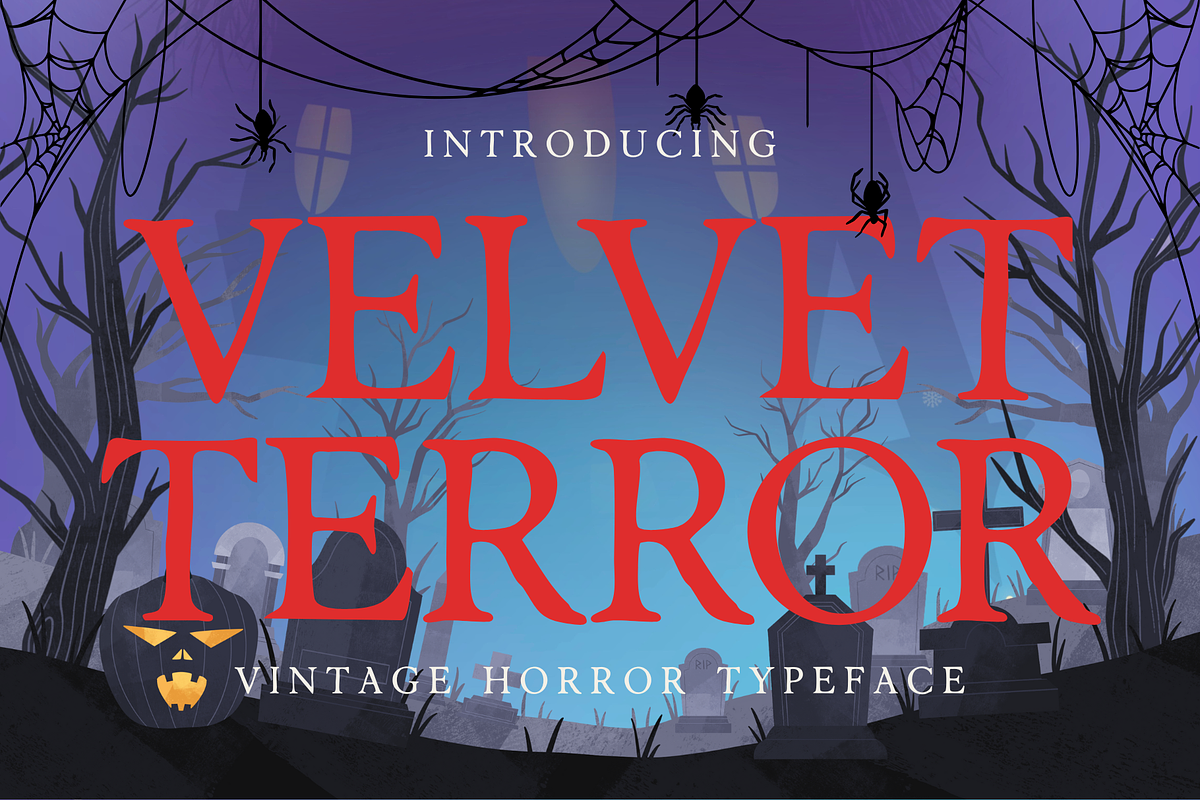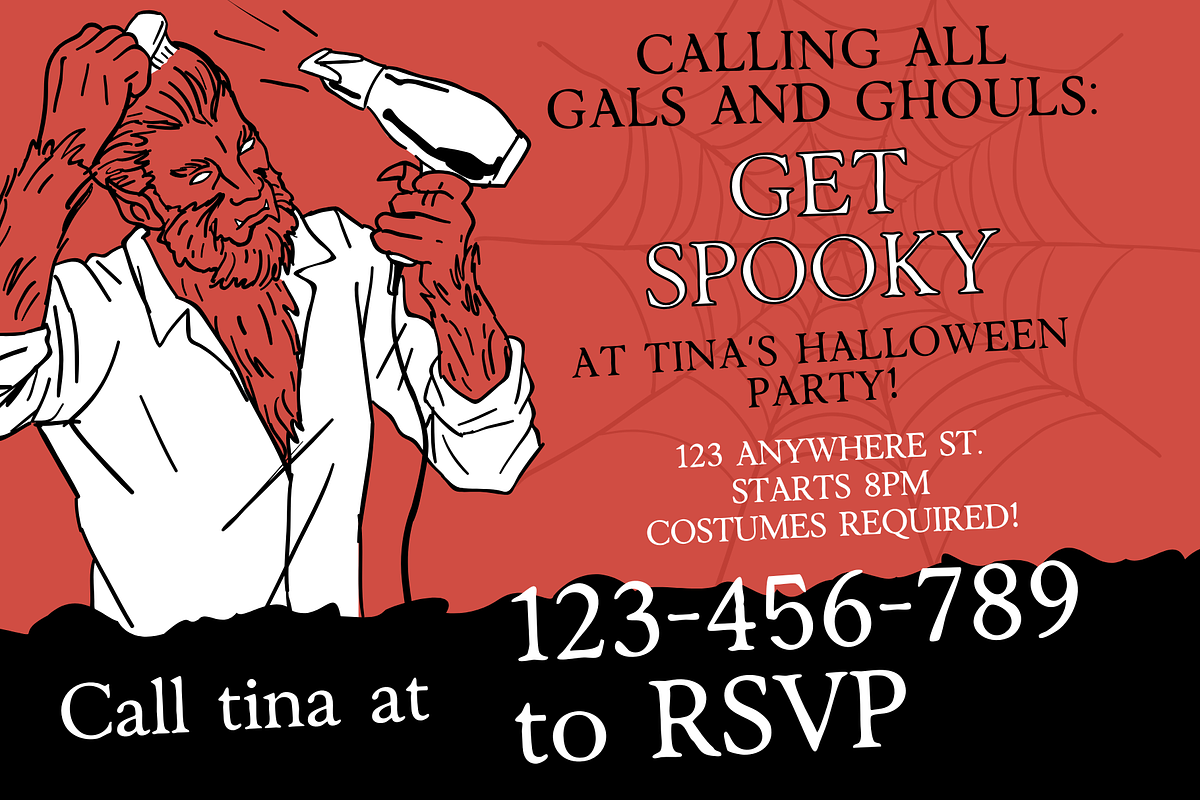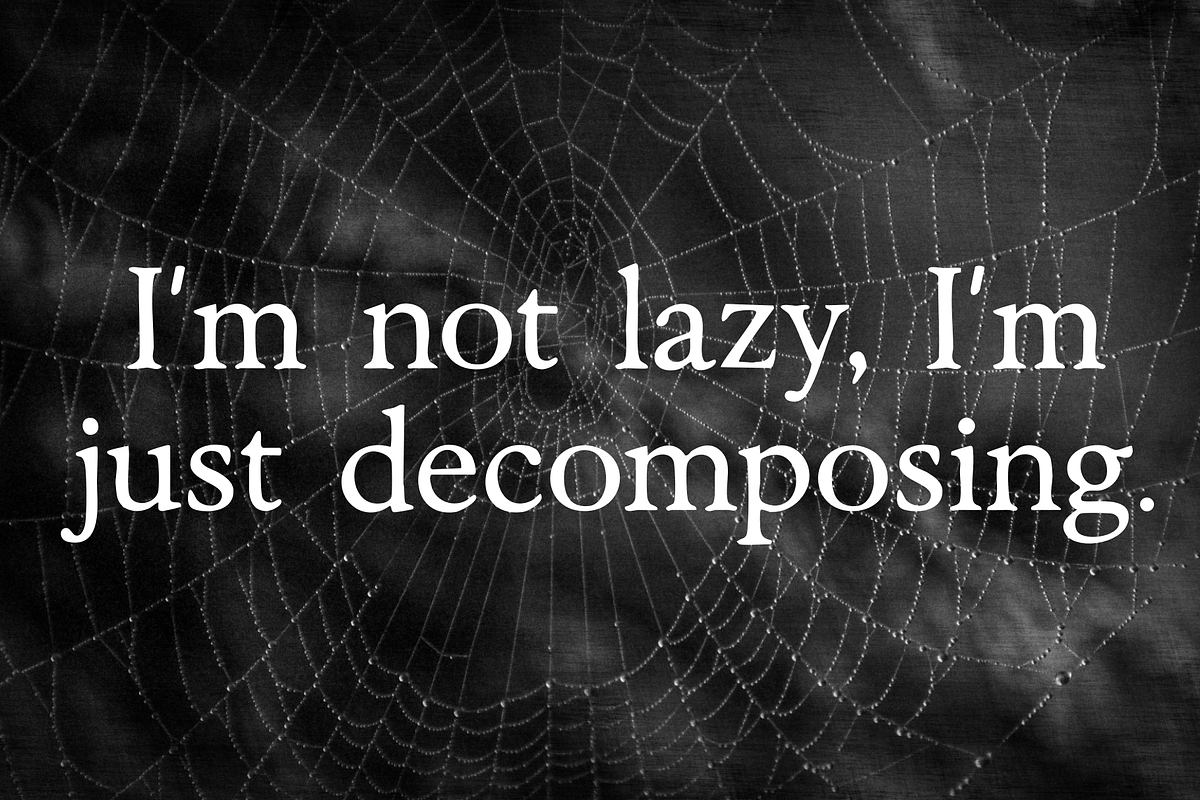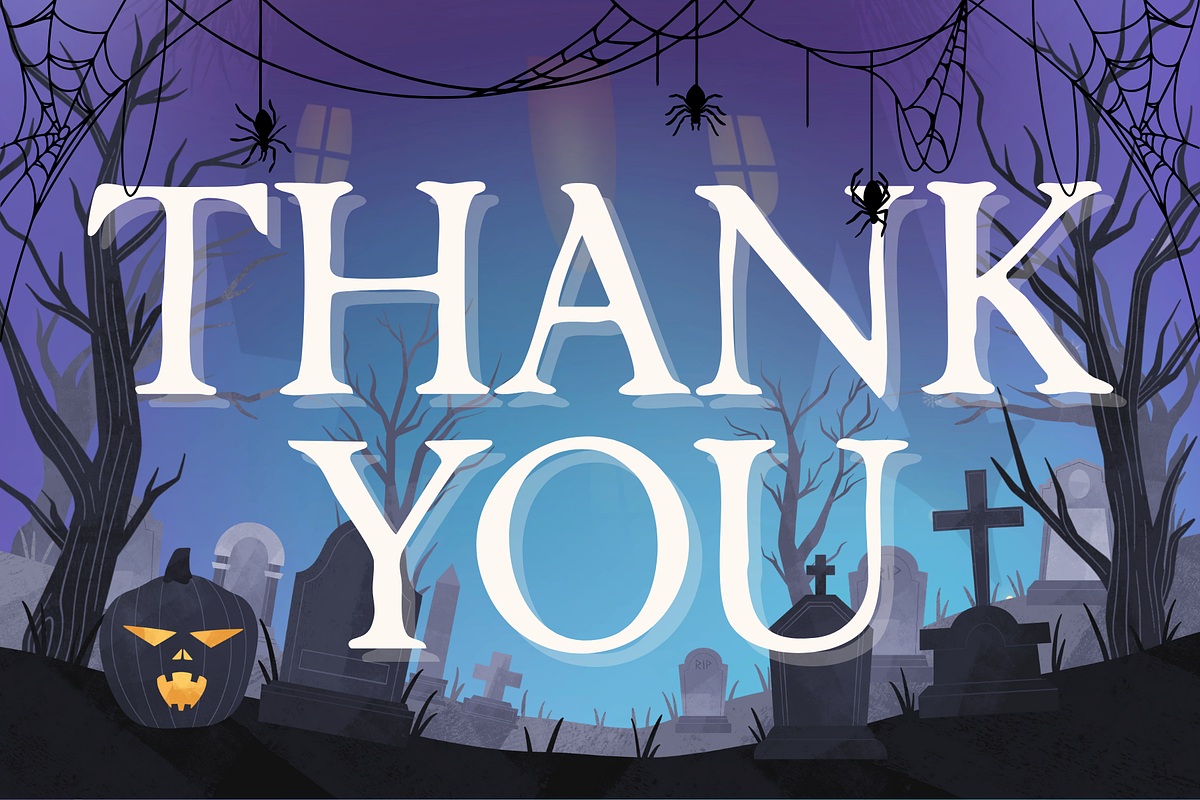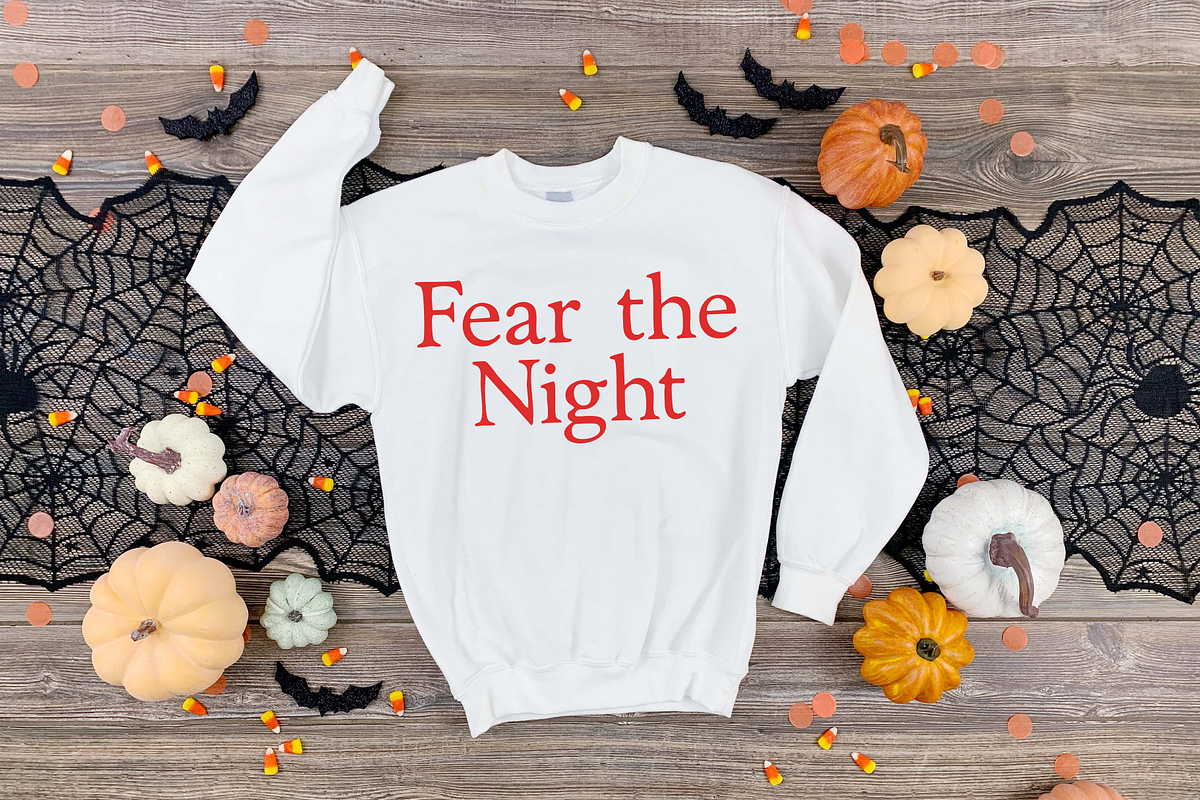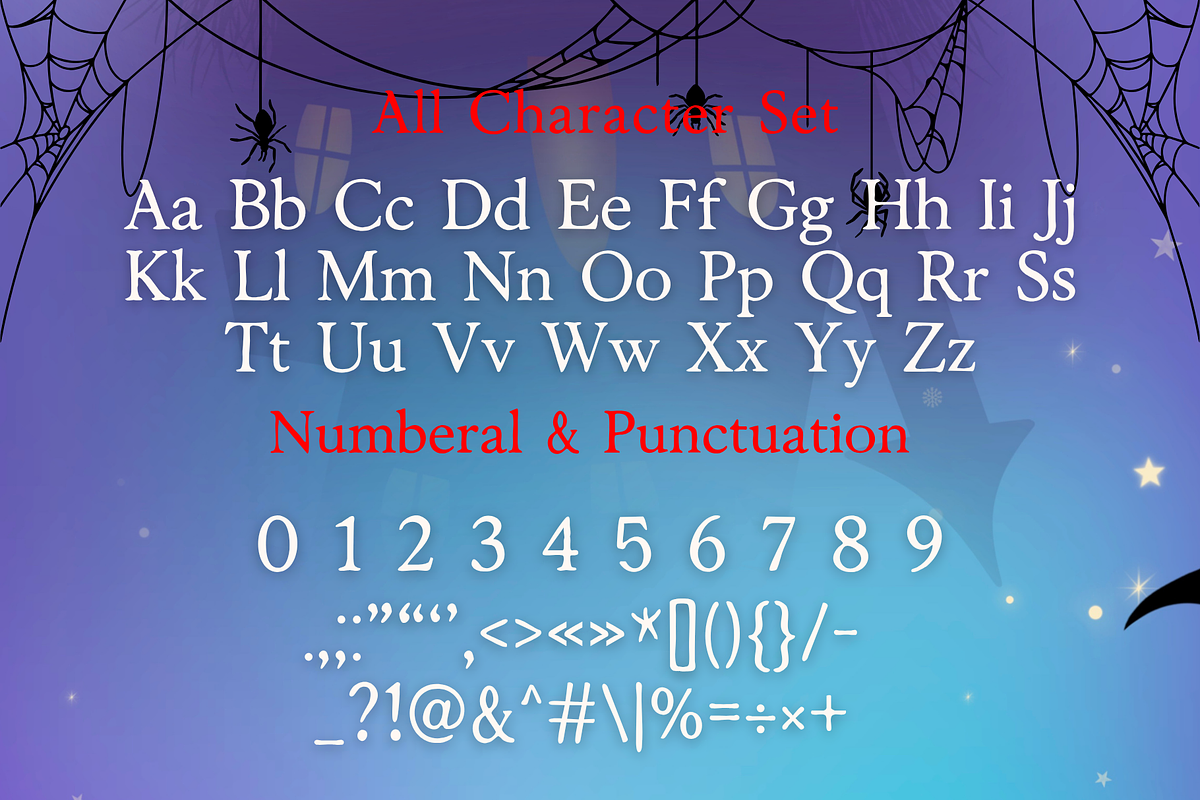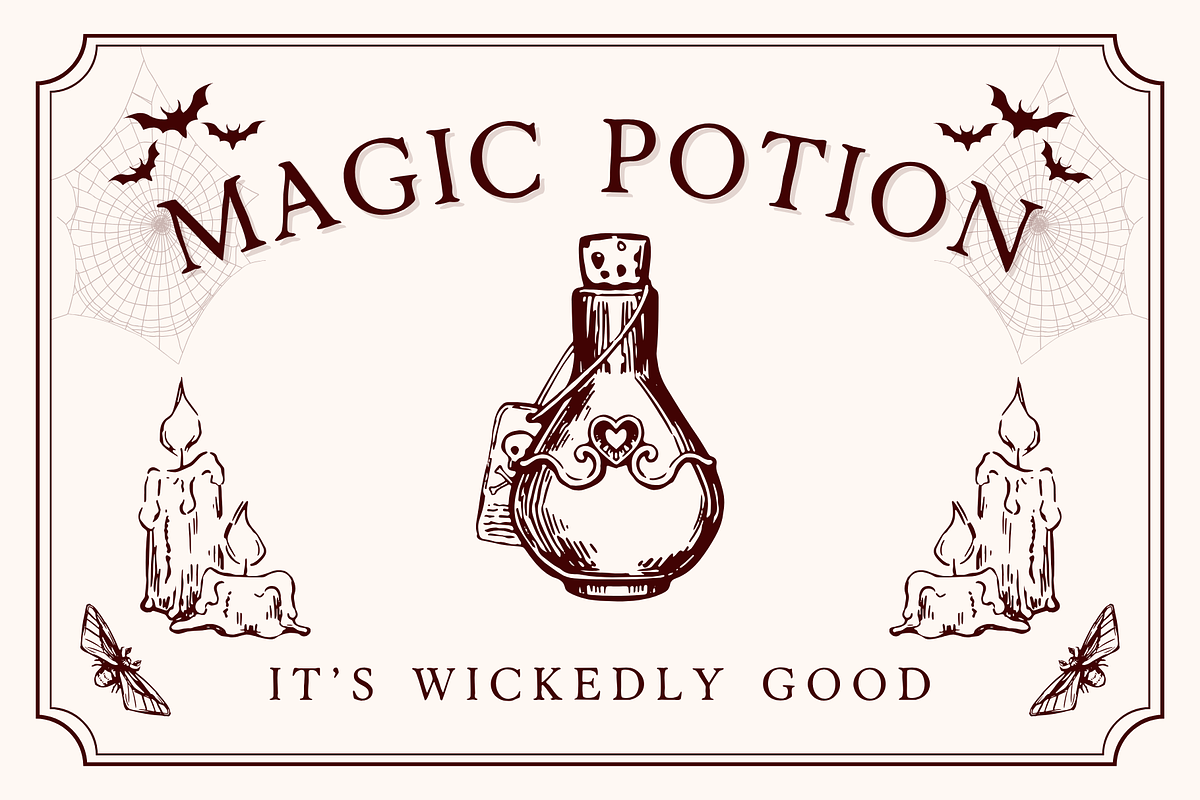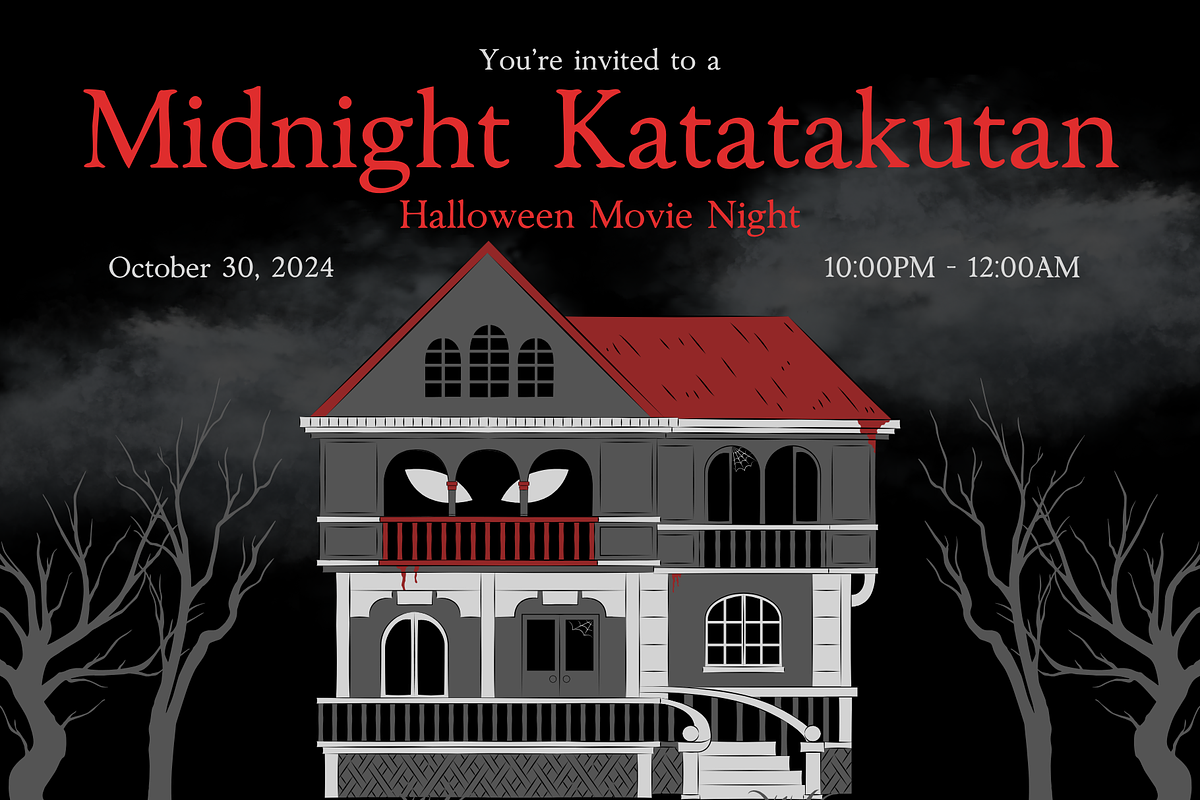
Velvet Terror is subtle horror font
Velvet Terror – A Typeface of Silent Dread
Velvet Terror is a subtle horror typeface that whispers unease through every curve. Designed to evoke a sense of calm tension, this font blends elegant forms with a hint of something unsettling—perfect for projects that aim to disturb gently rather than scream.